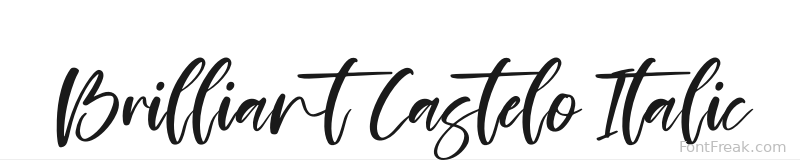
Brilliant Castelo Italic
The Brilliant Castelo Italic font by Perspectype Studio is a stunning script typeface that embodies elegance and fluidity. Released in 2021, this font is characterized by its graceful, sweeping strokes and a charming, handwritten aesthetic. The italic style lends a dynamic quality, making it perfect for projects that require a touch of sophistication. With a moderate stroke weight and gentle contrast, the characters flow seamlessly together, creating a cohesive look that is both inviting and stylish. The generous spacing enhances readability while maintaining an artistic flair, allowing the letters to breathe without feeling disconnected.
This font is ideal for a variety of design applications, particularly in areas where a personal touch is desired. It shines in wedding invitations, where its romantic curves can set the perfect tone for the big day. Additionally, Brilliant Castelo Italic is well-suited for restaurant menus, adding a touch of class that can elevate the dining experience. It also works beautifully for greeting cards and social media graphics, helping content creators convey warmth and creativity. Graphic designers will find this font a valuable asset for branding projects, as its distinctive style can effectively represent a brand’s personality.
Targeting graphic designers, small business owners, and content creators alike, the Brilliant Castelo Italic font free download provides an accessible option for those looking to enhance their visual communication. Its unique character set and artistic form make it stand out in a crowded marketplace. This font not only captures attention but also evokes emotion, making it a versatile choice for any project that requires an element of elegance and charm. Whether you're crafting invitations, promotional materials, or digital content, Brilliant Castelo Italic is sure to leave a lasting impression.